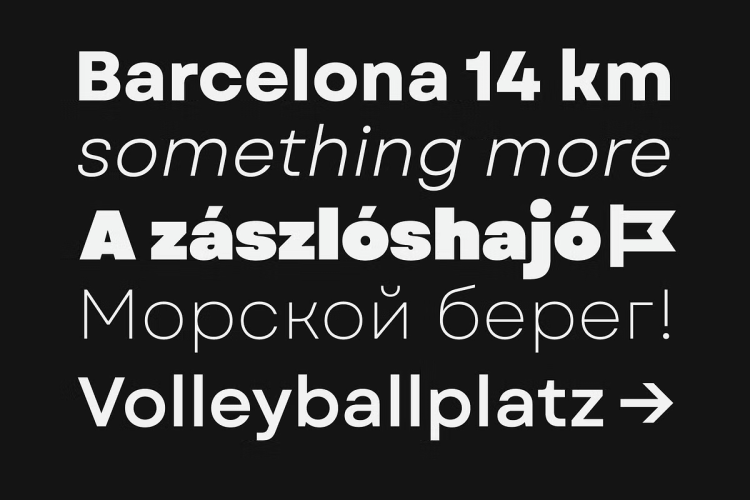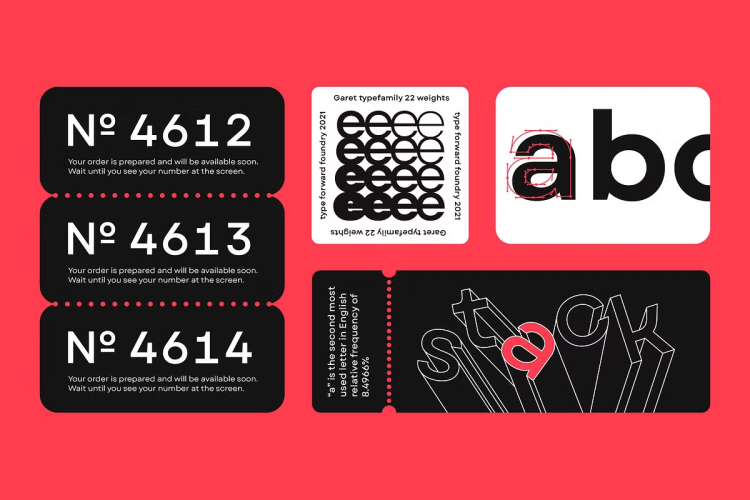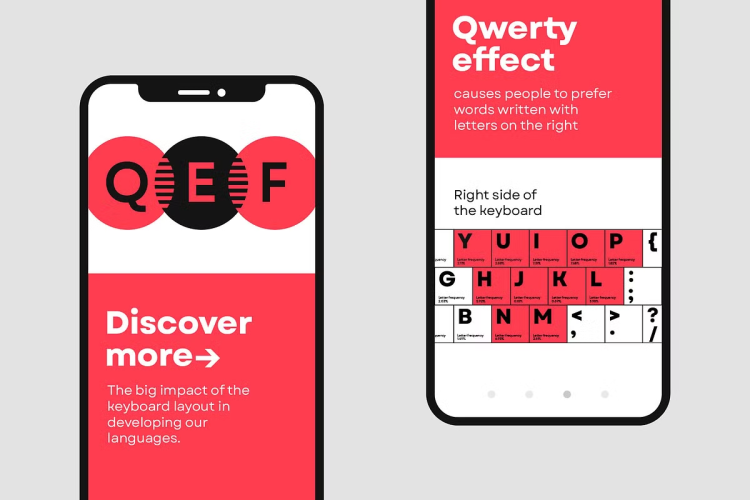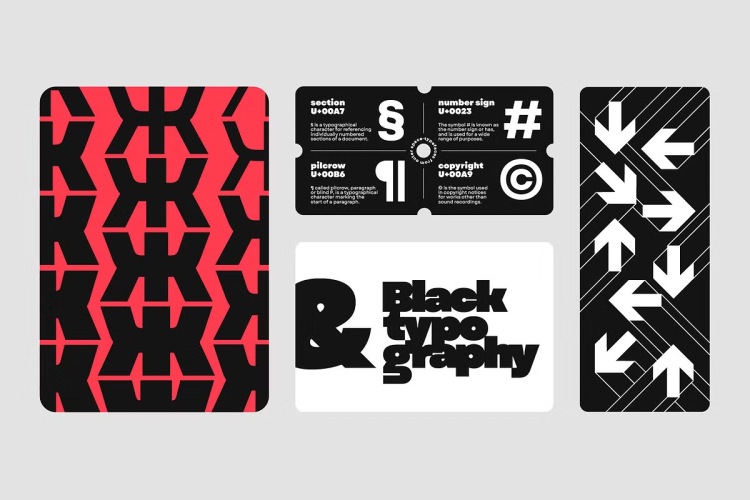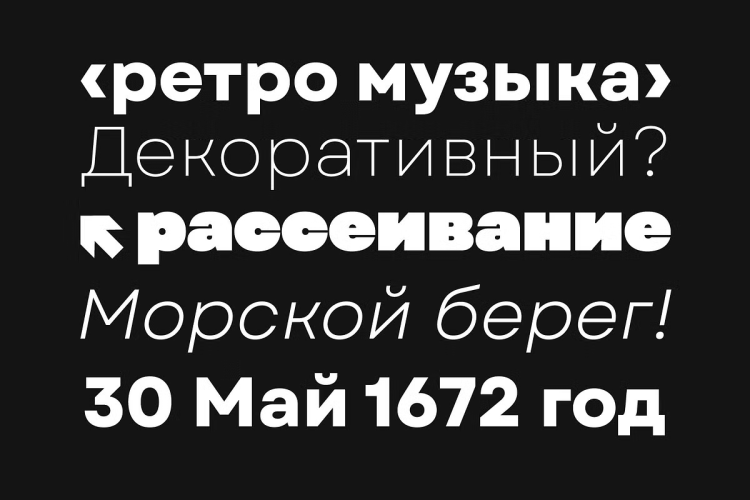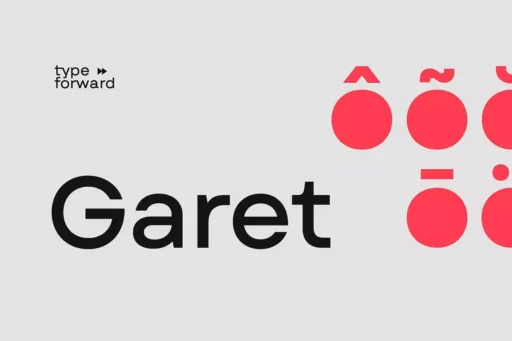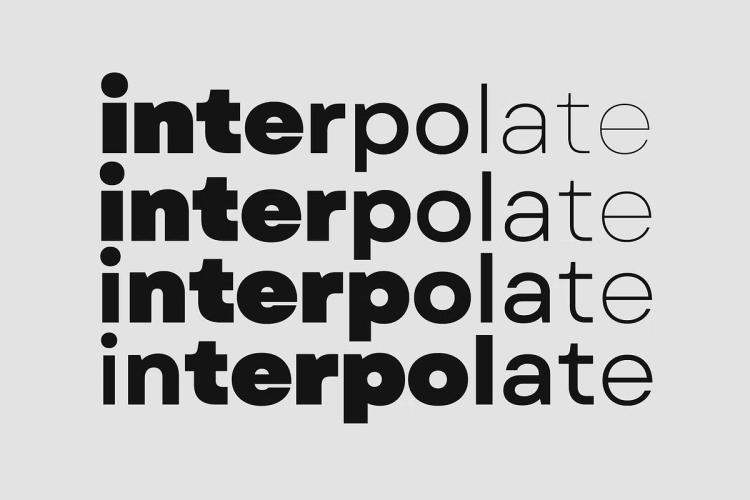
Garet Font
Garet is a new geometric sans serif font with a clear and rather aggressive appearance, but at the same time, minimalist and elegant. Designed by Mirela Belova and Stan…
Garet is a new geometric sans serif font with a clear and rather aggressive appearance, but at the same time, minimalist and elegant. Designed by Mirela Belova and Stan Partalev for Spacetype Foundry, Garet is an effective and highly printable typeface for different projects.
Designed by Mirela Belova and Stan Partalev in the framework of Spacetype foundry, Garet’s origin is connected with the intention to design a modern font that is both geometric in its structure and, at the same time, possesses a masculine, smooth, and sleek look. The most important constituent is that each letterform was designed by the designers with great care, and there is the proper balance of both traditional and contemporary aesthetics. Consequently, This makes it the preferred typeface for various domains such as editorial design, branding, packaging and APP design, mobile interfaces, and web design, among others.
With a decent number of 11 weights, including hairline to fat with both regular and italic, Garet has quite a versatility in terms of usage in the field of designs. Additionally, This extensive family is also available as a variable font, which means that you can make as many changes as you like, and those changes will never stop; there will be no more weights to add.
It boasts sophisticated language support options covering Extended Latin and Cyrillic character sets to accommodate over two hundred languages. As with any display typeface, it includes OpenType features such as ligatures, tabular and small figures, fractions, language localisations, and case sensitive punctuations to allow the designer to engage in high-level typography. Furthermore, another advantage derived from using alternative stylistic sets is the production of minor variations in the aesthetic value of the typeface, which makes it versatile.
Garet has the advantage of versatility since it can be used in many fields in the print media as well as the digital world. In rich editorial design, branding, packaging, app designing, mobile interface, and web designing, it is beyond par. It has clean and modern look that would blend well to modern architecture and structures. Furthermore, it also comes with many features that enable architectural rendering flexibility.
Garet is not only simple, clean, and modern but also quite trendy for any designer who would choose to implement the geometric sans serif fonts. Everything from the typographic features to the language support and the variable font format constitute the many ways in which it is immensely helpful for a designer. Whether you are designing corporate branding or your new magazine layout and even the fresh icon design for a new mobile application, Garet can add new spirit to your design with clean lines and geometric measurements, and a splendid smooth masculine perspective.
Garet is a sans-serif type of font that has geometric forms and has been designed in the modern style by Mirela Belova and Stan Partalev through Spacetype. It has tidy formal outlines, formal ornaments, and general sophisticated male timbre.
Garet is a new geometric sans serif typeface that aims at becoming a universal tool for typographers and designers. Their observed characteristics are smooth masculine tone, clean lines, and geometrical shapes.
Garet is versatile for any use: headlines and body text, branding and logos, package design, application and interfaces on mobile devices.
Where Garet Font works best
Garet Font stays legible at small sizes, which makes it a strong choice for navigation, buttons and dashboards in web design and app interfaces.
Clean sans serifs like Garet Font are the default language of SaaS, fintech and product branding.
What is Garet Font good for?